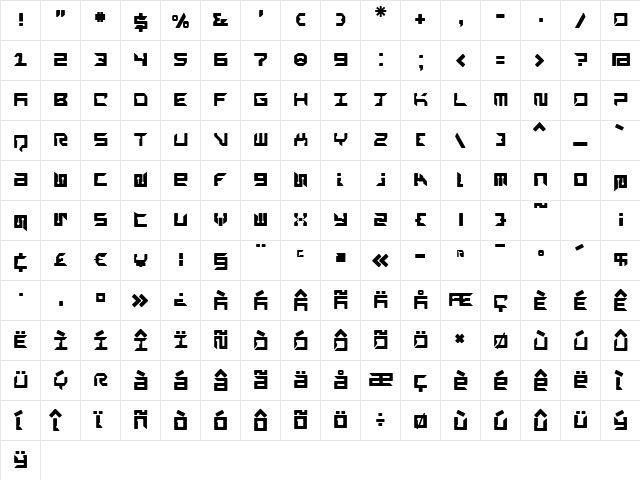
RayzorBlunt Regular
Design Context for RayzorBlunt Typeface
RayzorBlunt is a composed and adaptable typeface that performs quietly and consistently across a wide range of design contexts.
Pro Tip: Use RayzorBlunt in both headline and body roles to test its range before committing to a single application.